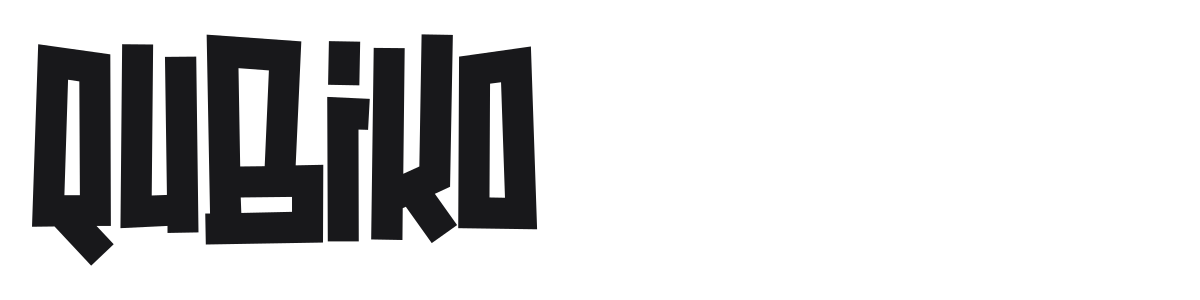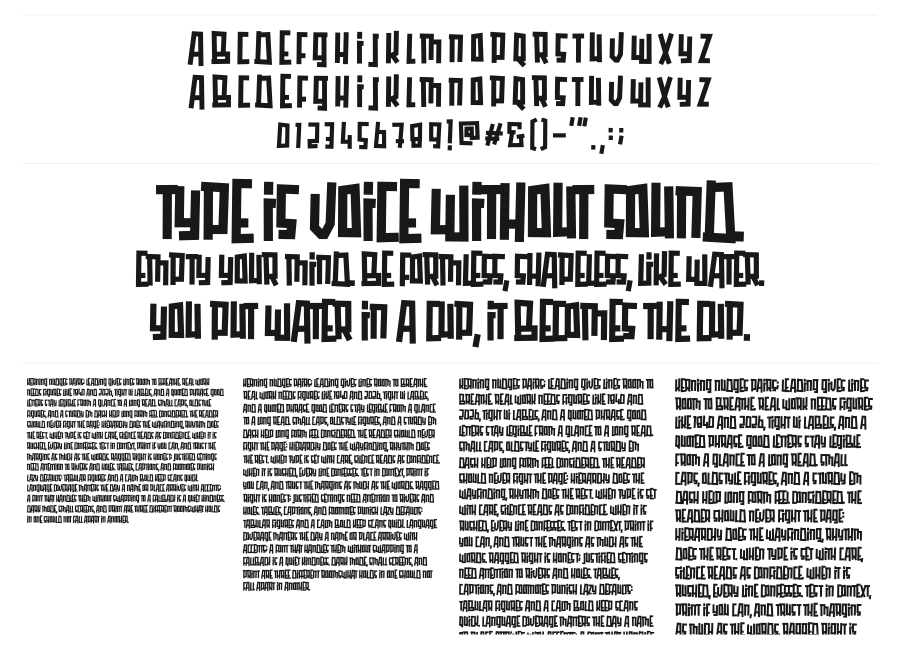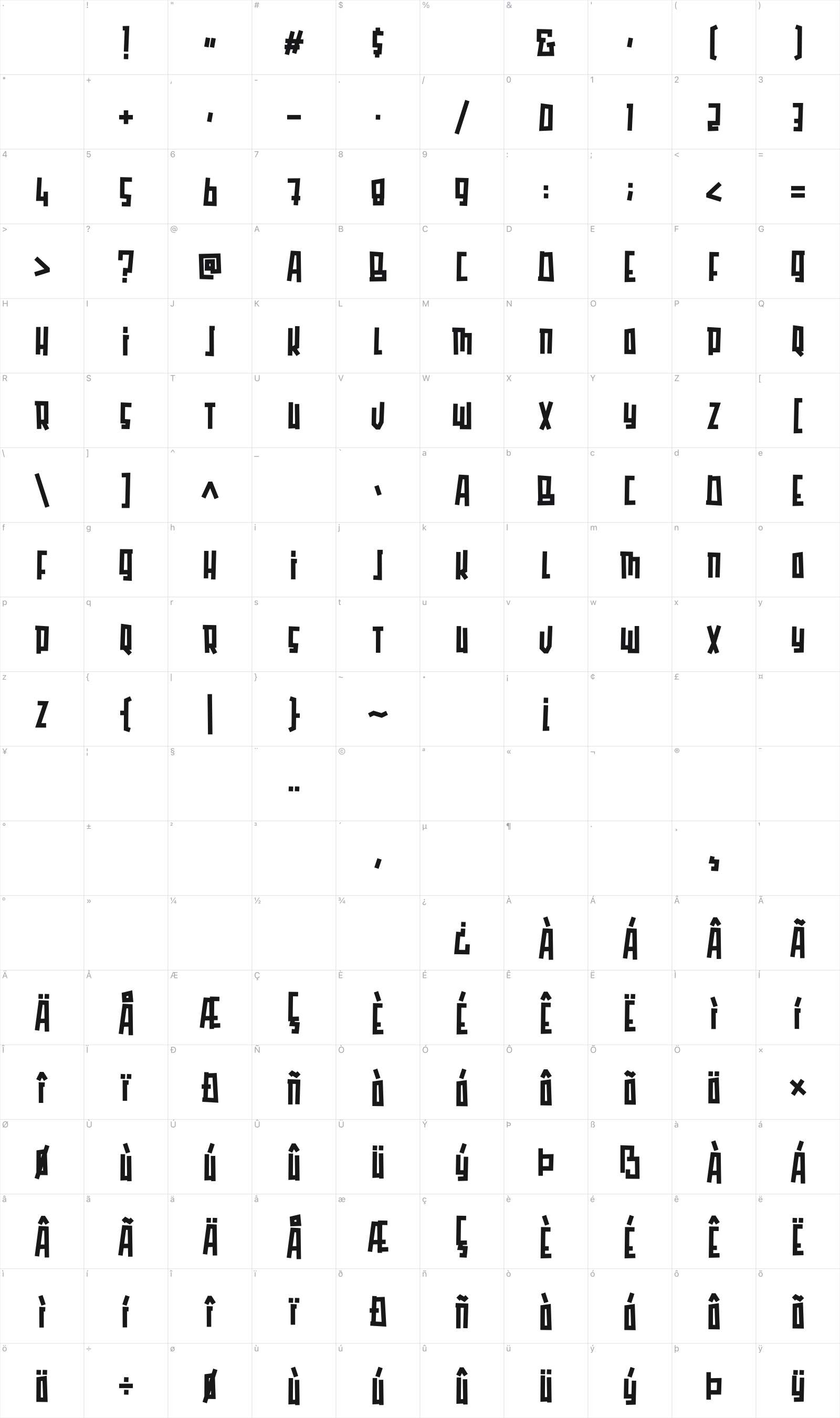
Qubiko
Qubiko is a heavy condensed display font built around fractured, angular letterforms that look like they've been sliced apart and reassembled slightly off-register. The irregular cuts and sheared strokes give it a raw, deconstructed energy that stands apart from conventional bold sans designs. It has real presence in posters, album covers, and any headline that needs attitude.